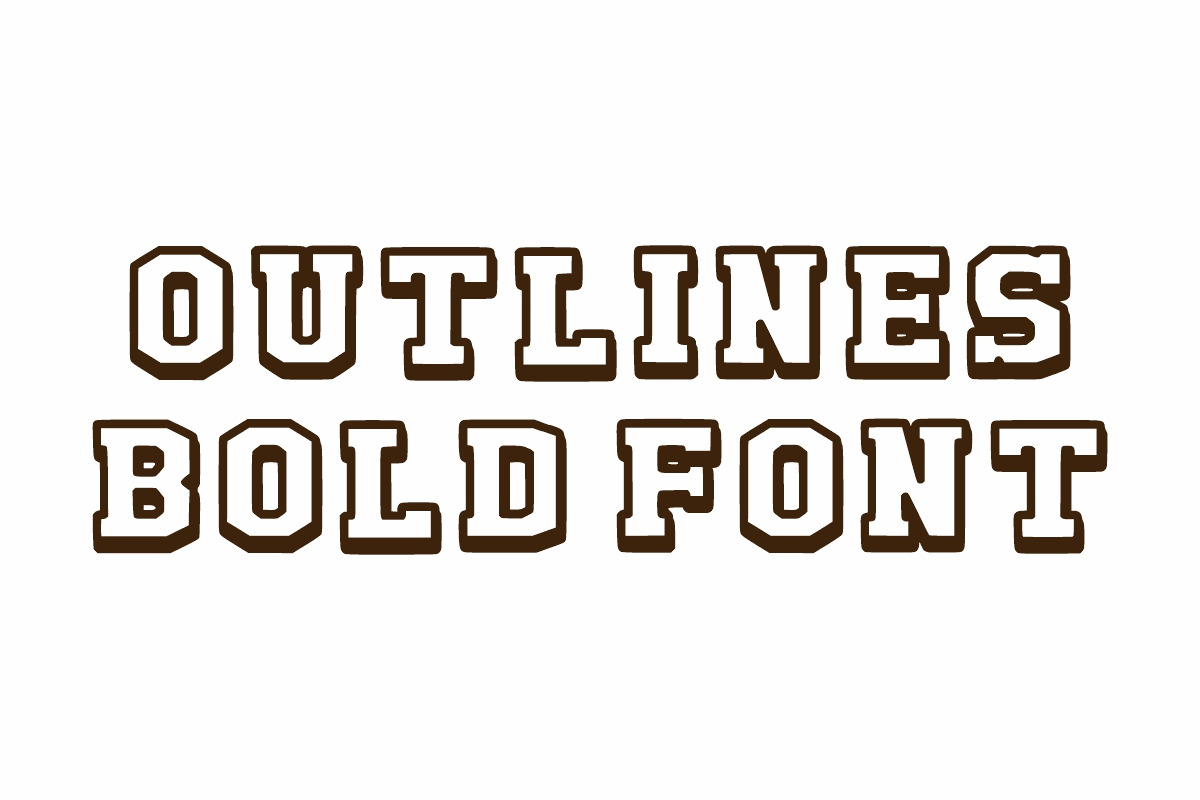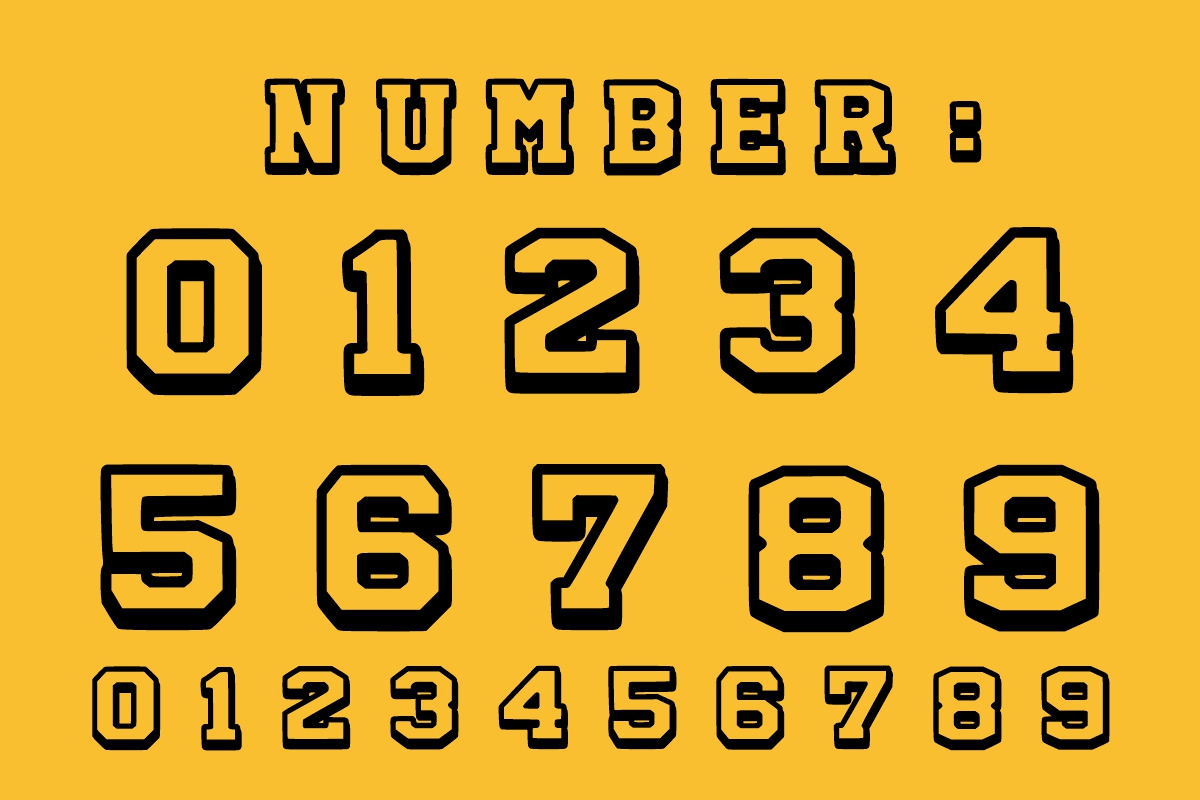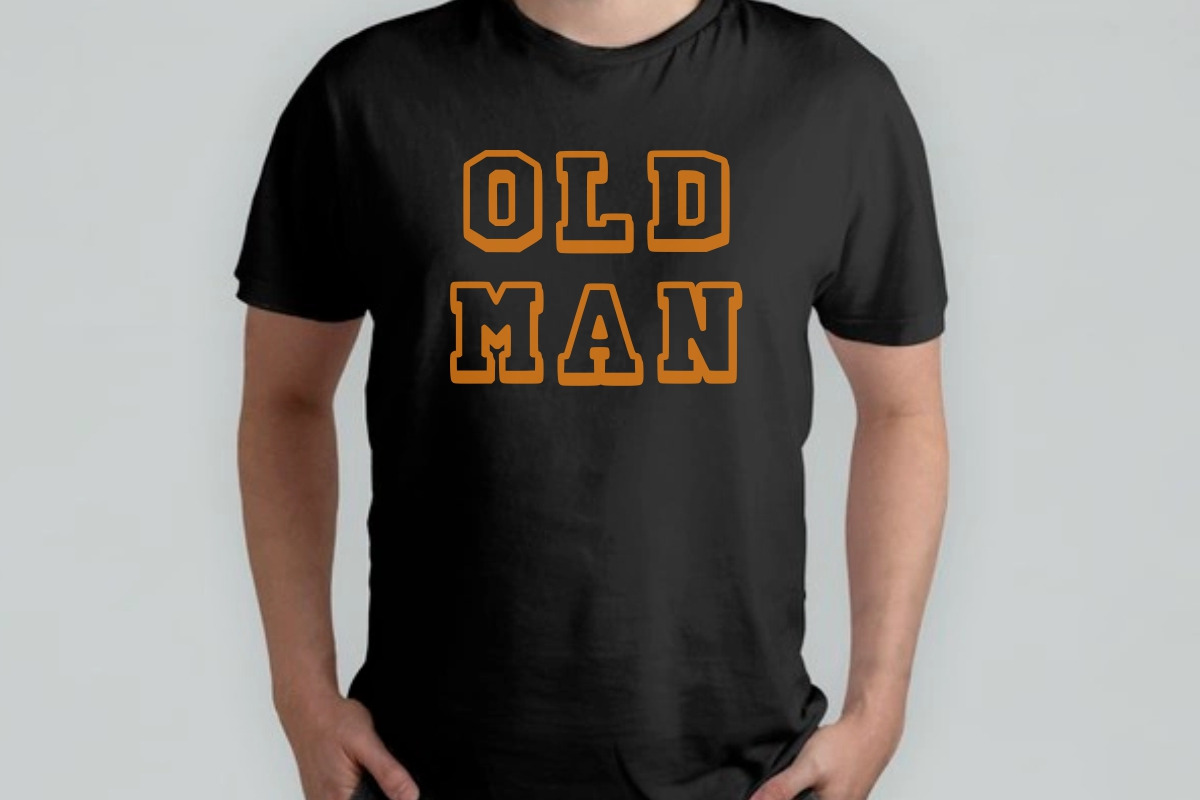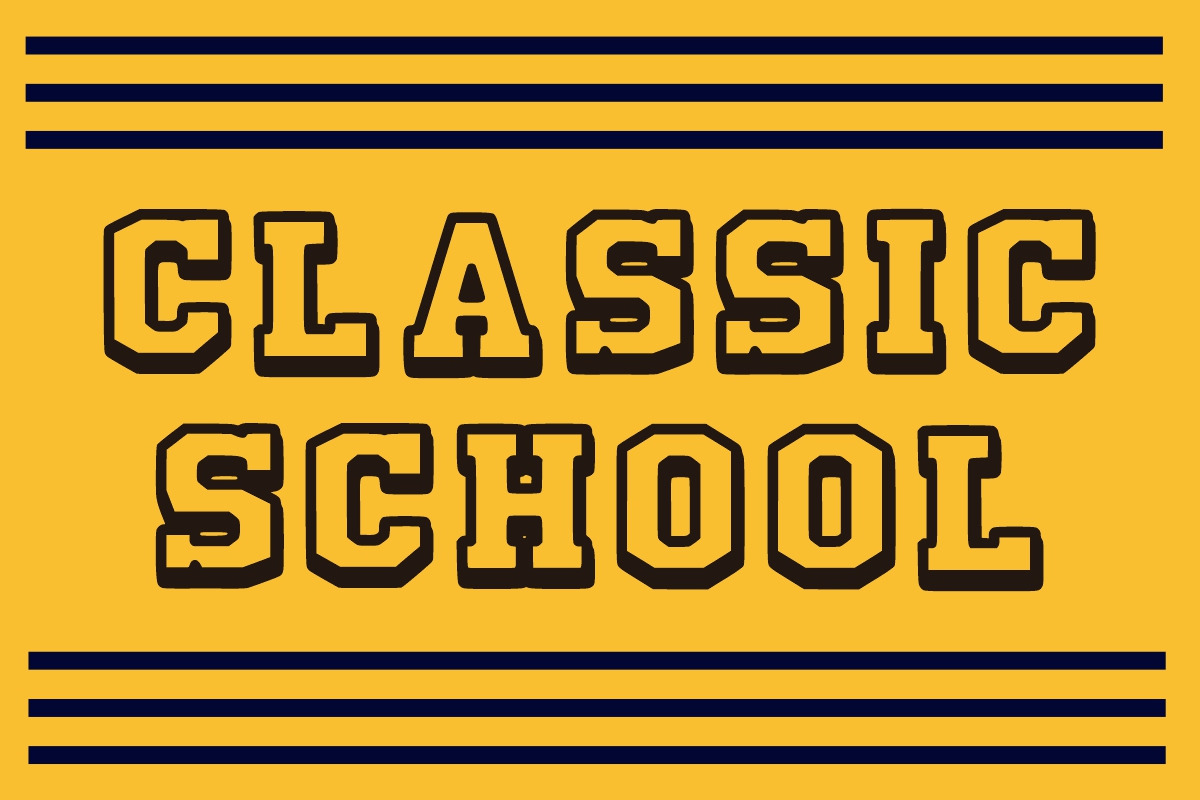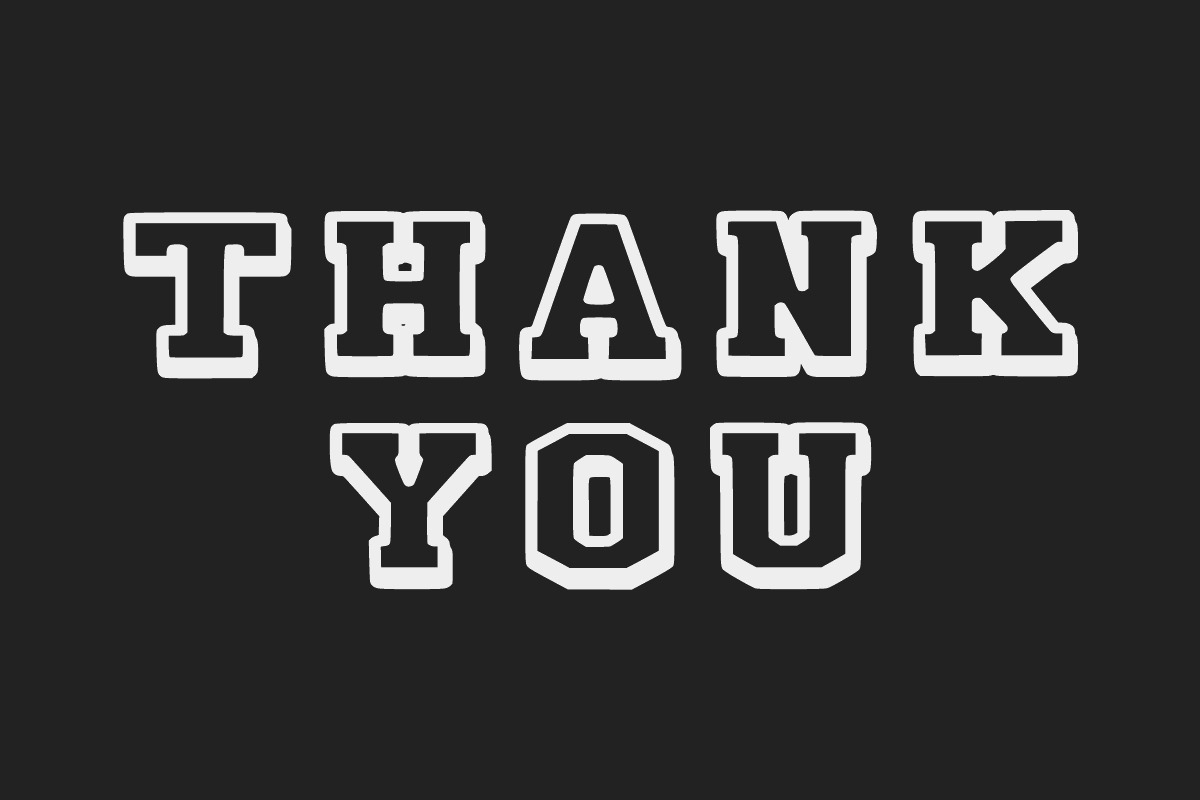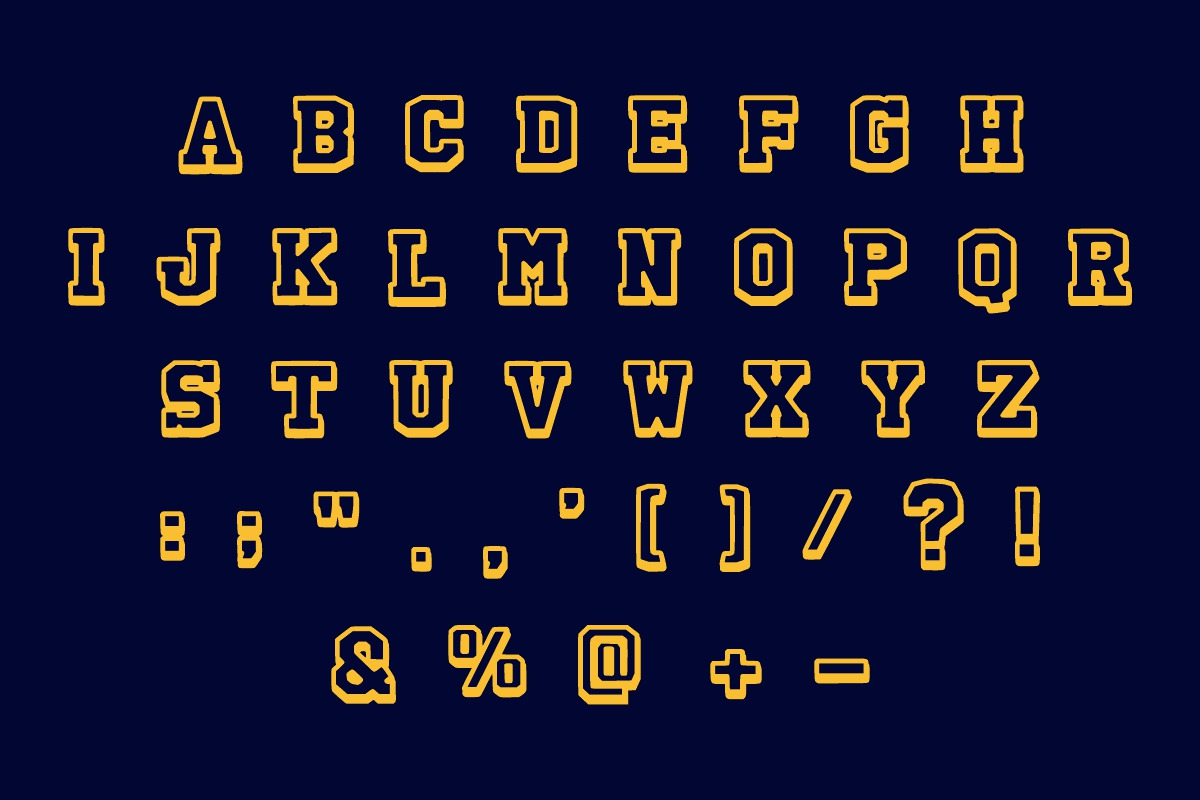
Varsity Tokyo
Varsity Tokyo is a Line and bold display font. It is suitable for any winter and holiday branding project, product packaging, invitation, quote, t-shirt, label, poster, text effect, label, and logo that you wish to develop.